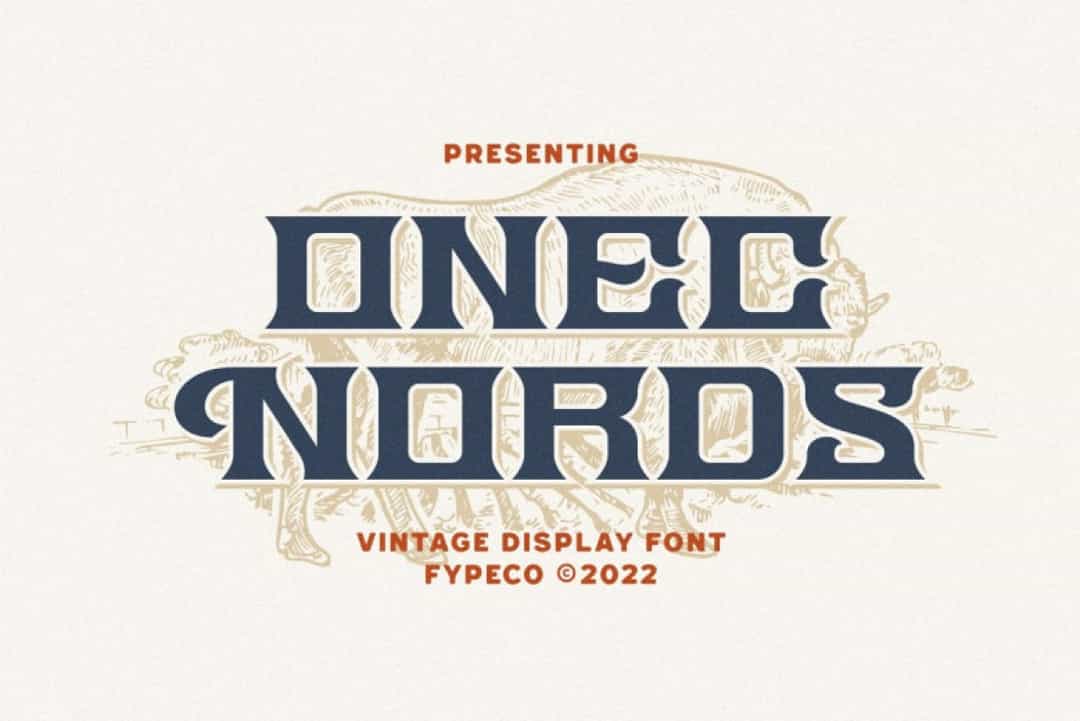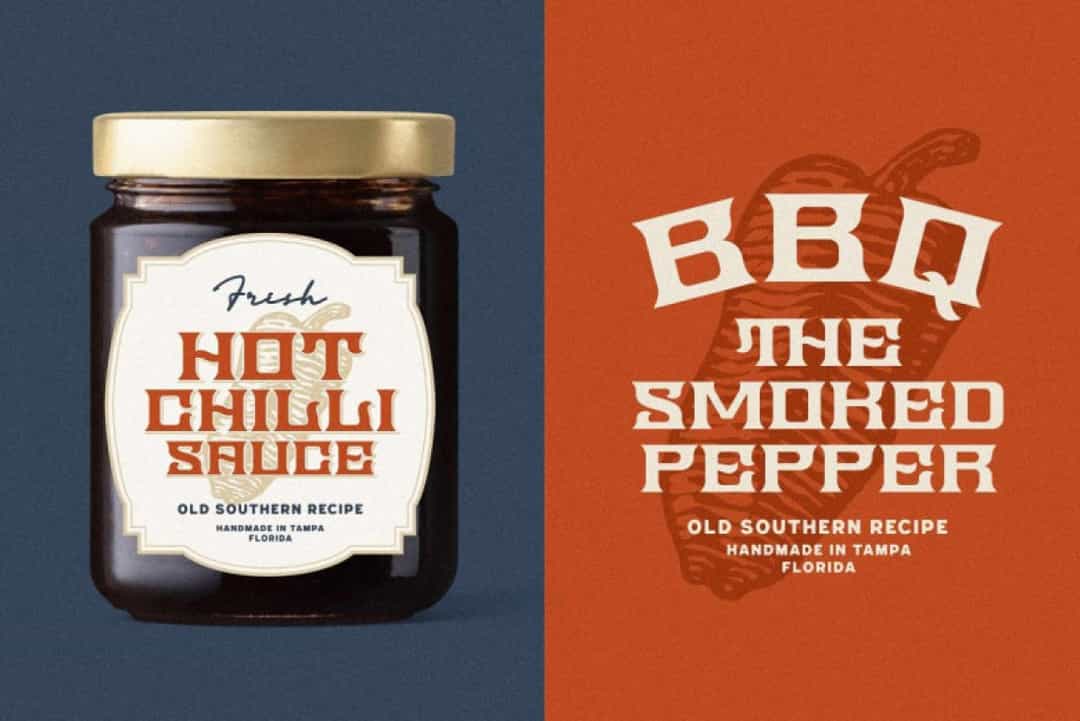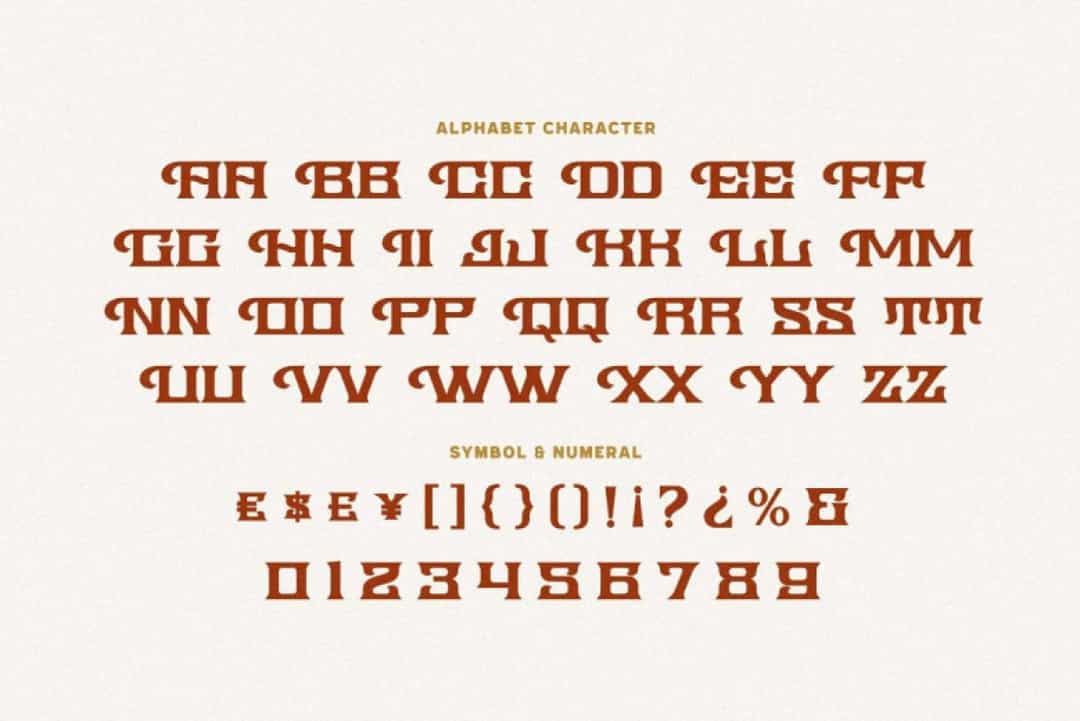
Onec Nords is an old-fashioned display typeface with an eye-catching bold style. Crafted by hand, its classic, vintage or old-fashioned appearance lends it an air of vintage chic that makes this font great for labels, logos, designs and clothing – as well as many other purposes! Feel free to experiment with its various variations and ligatures at will.